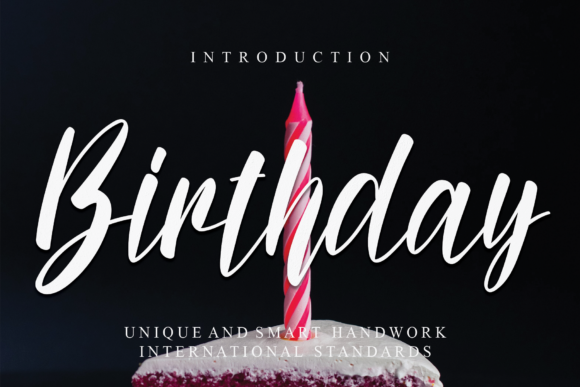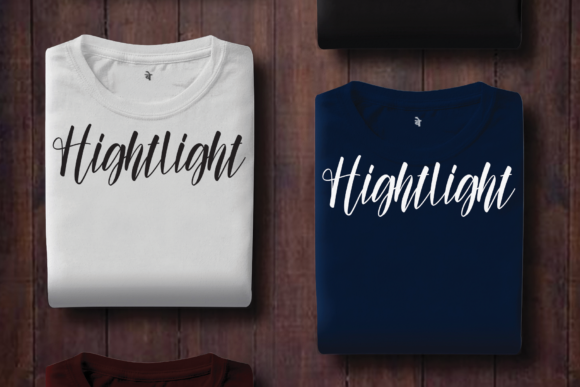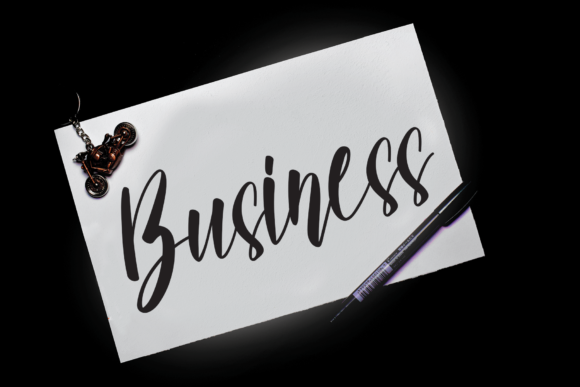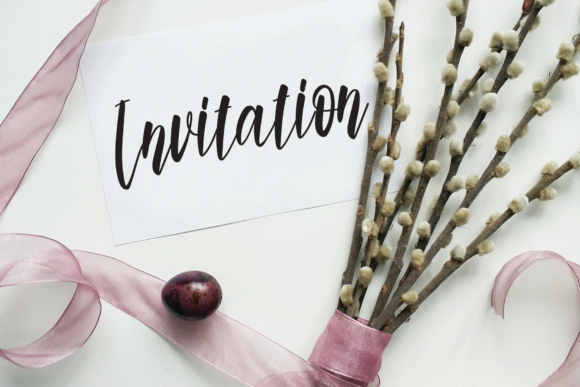
Birthday Font
About Birthday Font
Birthday is a chic, flowing script font that emanates casualness and trendiness. Its stylish alternates and ligatures make this font the perfect match for any project.